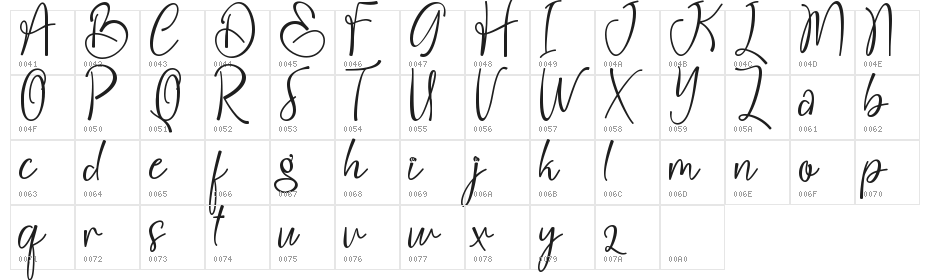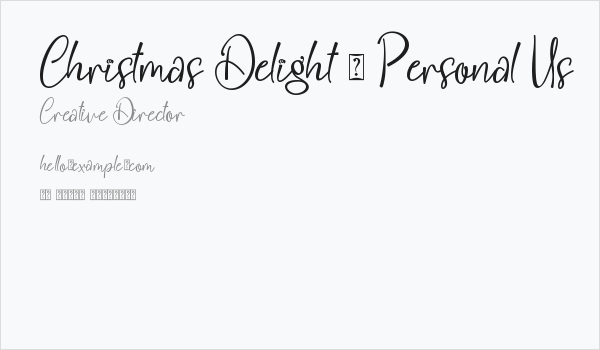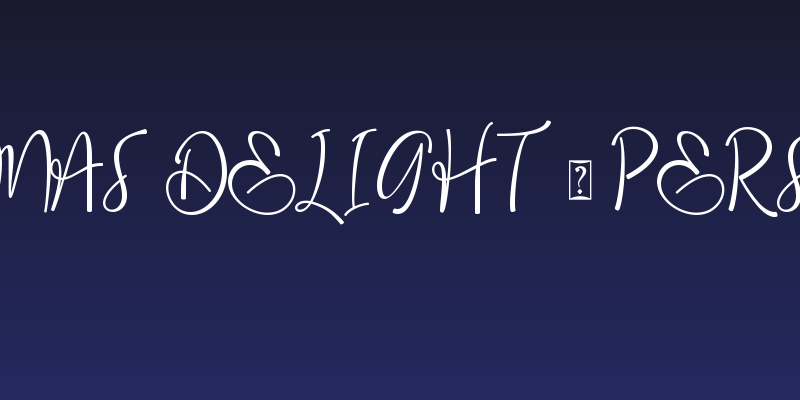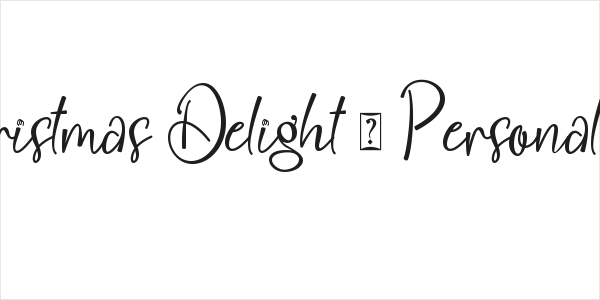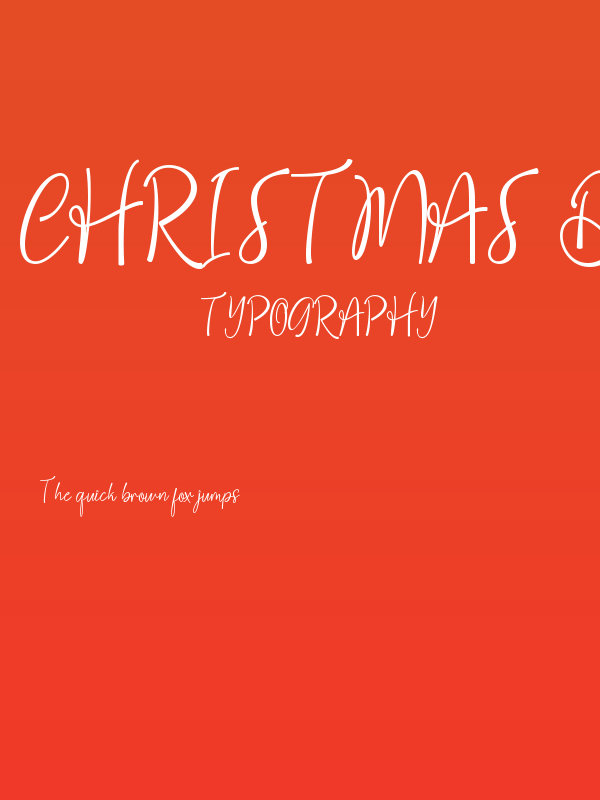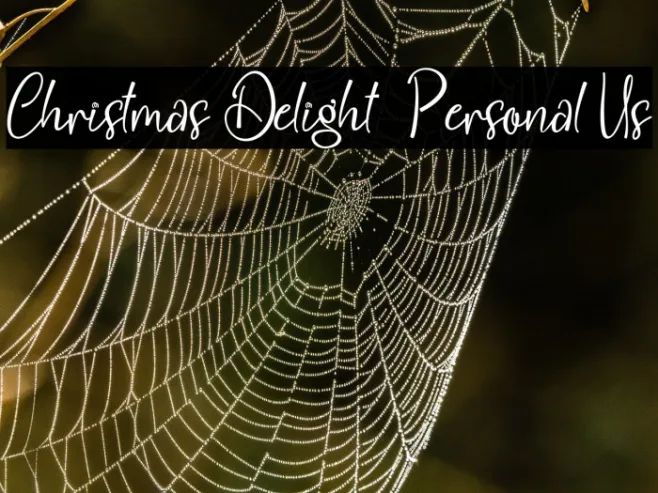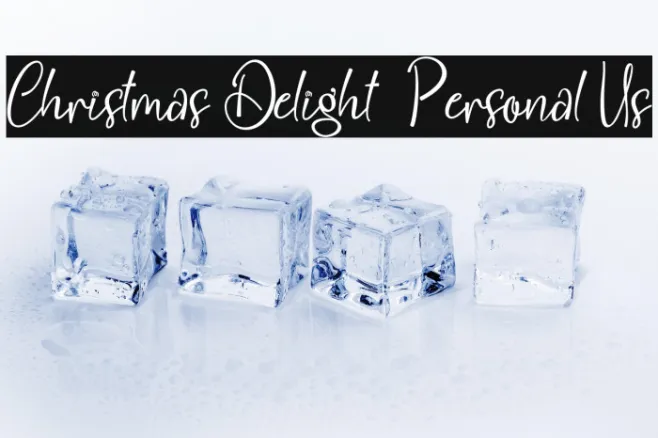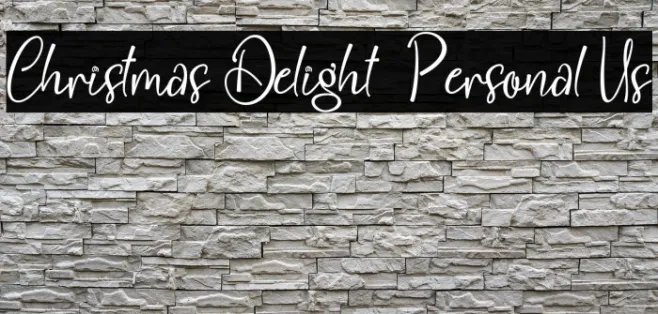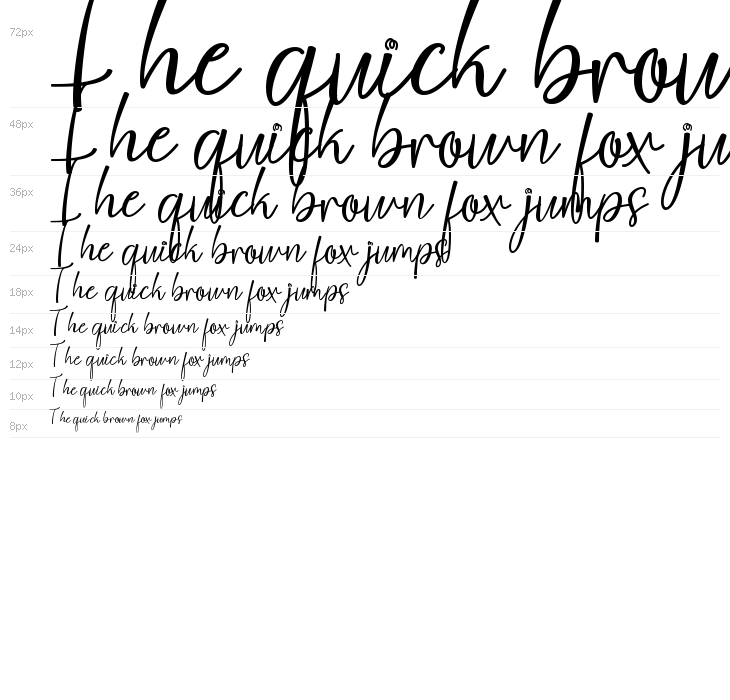
Christmas Delight - Personal Us Font
Christmas Delight - Personal Us Description
This font exudes a whimsical and festive charm, characterized by its playful and flowing script style. The letters are elegantly curved with a hand-drawn appearance, giving it a personal and inviting feel. The uppercase letters are tall and slender, while the lowercase letters maintain a consistent flow with occasional loops and swirls, adding to its decorative nature. The font maintains a consistent stroke width, providing a harmonious and balanced look. It is ideal for creating a joyful and celebratory atmosphere, perfect for holiday-themed projects or any design that requires a touch of elegance and warmth.
| Use Case | Headlines, Invitations, Decorative text |
| Proposed Projects | Ideal for holiday cards, festive invitations, decorative posters, and branding that requires a joyful touch. |